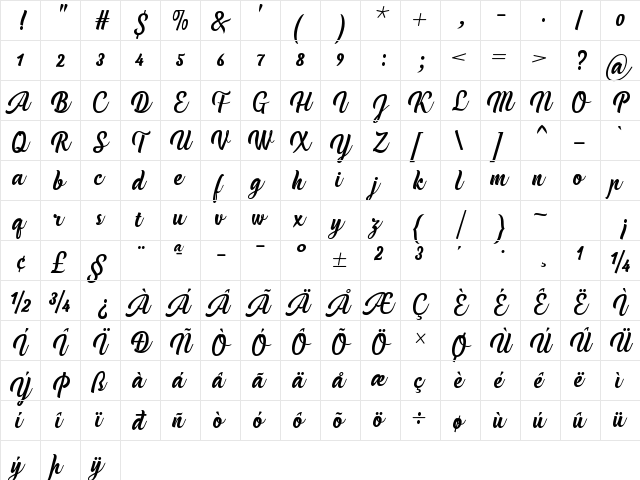
Handycheera Regular
| Designer | Situjuh Nazara |
Design Context for Handycheera Typeface
Handycheera brings a calligraphic fluidity to the page — its connecting strokes and expressive curves give it an unmistakably human quality.
Font Pairing: Combine Handycheera with a simple geometric sans for maximum contrast — the tension between flowing curves and clean structure is a classic typographic pairing.
Pro Tip: Use Handycheera for short runs of text — names, titles, or taglines. Extended body copy in script faces tires the eye quickly.